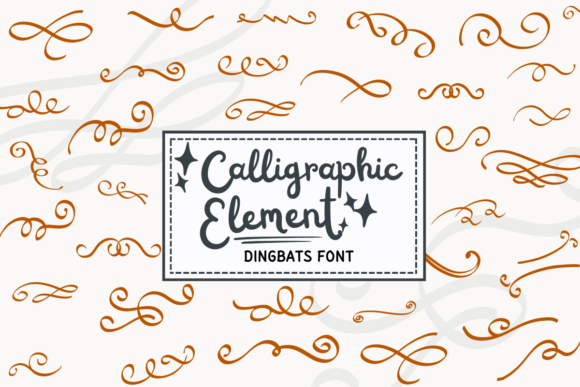
The Art of Beautiful Lettering: Unlocking the Power of Calligraphy Element Font
Have you ever been rummaging through a vintage stationery store, and suddenly, a beautiful, hand-drawn font catches your eye? The way the letters flow, the delicate strokes, and the overall charm of the design makes you want to create something special. This is exactly the feeling you get when you work with the Calligraphy Element Font, a stunning dingbats font that brings a touch of elegance to any project.
This versatile font is perfect for designers who want to add a personal touch to their creative projects. With its sketch-style theme, Calligraphy Element Font is ideal for wedding invitations, DIY crafts, decorations, logos, and many other innovative ideas. Whether you’re a seasoned designer or a crafty enthusiast, this font is sure to inspire your creativity and help you stand out from the crowd.
- Unique Characteristics: Hand-drawn calligraphy style, elegant and sophisticated design, ideal for invitations, wedding stationery, and other formal events
Designer Review: Calligraphy Element Font
Overall, I’m impressed with the Calligraphy Element Font. It’s a beautiful, elegant font that’s perfect for creative projects, especially those that require a touch of sophistication. ✨ The intricate details and flowing lines make it a great choice for invitations, wedding stationery, and other high-end designs.
One of the things I love about this font is its versatility. It can be used in a variety of settings, from formal events to casual gatherings. ✨ The font is also highly customizable, allowing you to adjust the size, color, and spacing to fit your design needs.
- Beautiful, elegant design ✨
- Perfect for creative projects, especially high-end designs
- Can be used in a variety of settings
- Can be difficult to read at small font sizes ⚠️
- May not be suitable for large blocks of text ⚠️
- Requires careful alignment to look its best ⚠️
Overall, I would highly recommend the Calligraphy Element Font for designers looking to add a touch of elegance to their projects. With its beautiful design and versatility, it’s a great choice for a wide range of applications. Just be sure to use it wisely and pay attention to the limitations mentioned above.
The Calligraphy Element Font is perfect for:
- Special occasion announcements
- Luxury branding and packaging
- Artistic and creative projects